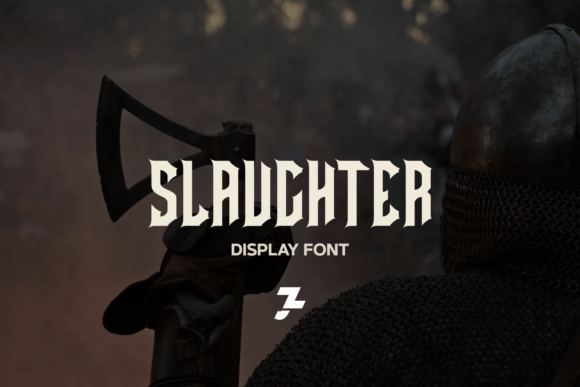
Introducing Slaughter Font, the blackletter font that's sure to add a touch of uniqueness to your designs. Crafted by the renowned zamjump, this font exudes simplicity and friendliness, making it perfect for any project that calls for a personalized look. Whether you're creating eye-catching memes, designing invitations, or personalizing your social media posts, Slaughter Font has got you covered.
Slaughter Font's blackletter style adds a touch of history and elegance to your designs. Its bold, dramatic strokes command attention, while its flowing curves add a touch of sophistication. This font is perfect for creating logos, branding, and other marketing materials that need to make a lasting impression.
But Slaughter Font isn't just about aesthetics—it's also incredibly versatile. Its simple, yet distinctive letterforms make it suitable for a wide range of applications. From invitations and greeting cards to posters and flyers, Slaughter Font can effortlessly elevate any design project.
One of the things that makes Slaughter Font so popular among designers is its meme-worthiness. Its bold, eye-catching letterforms are perfect for creating hilarious and shareable memes that are sure to get a laugh out of your friends and followers.
If you're looking for a font that's both stylish and functional, Slaughter Font is the perfect choice for you. Its blackletter style adds a touch of uniqueness and sophistication to your designs, while its versatility makes it suitable for a wide range of applications. So why wait? Download Slaughter Font today and start creating designs that are sure to impress!